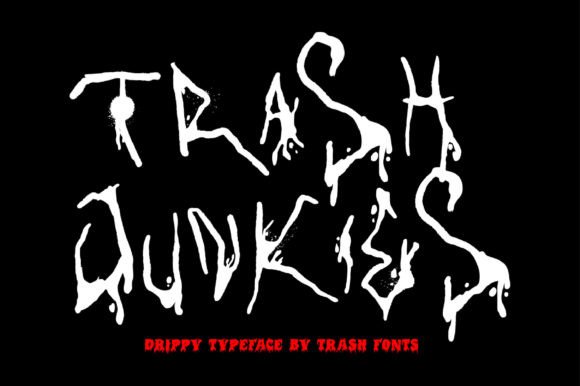
Step into the realm of horror and intrigue with "Trash Junkies" Font, a display font family that is anything but ordinary. Prepare to be captivated by its dripping letterforms, exuding an eerie allure that adds a unique and spine-chilling element to your designs. Unleash your creativity and embrace the darkness within.
Crafted by the talented team at Prioritype, "Trash Junkies" Font is a journey into the macabre. Its dripping effect is reminiscent of a haunted house on a stormy night, evoking a sense of mystery and intrigue. Each letter is a stroke of genius, designed to make your text stand out and command attention.
Immerse yourself in the world of horror and inject a dose of intrigue into your logos, merchandise, album covers, and more. The versatility of "Trash Junkies" Font allows you to explore different design possibilities, creating visuals that are both enchanting and haunting.
With "Trash Junkies" Font, you hold the power to capture your audience's attention and leave a lasting impression. Its dripping letterforms drip with character, making it the perfect choice for those seeking a unique and eye-catching font.